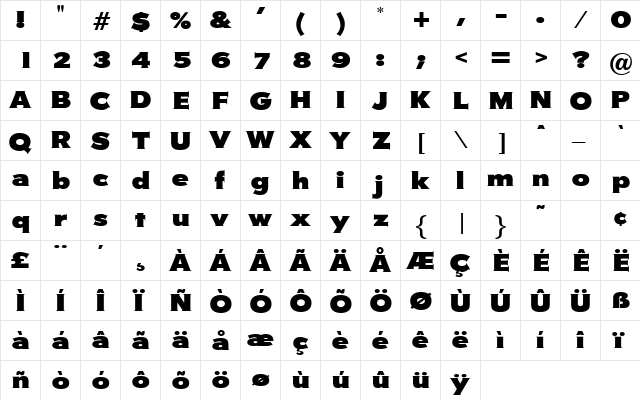
Wasserman Regular
Design Context for Wasserman Typeface
Wasserman offers clean, dependable letterforms without strong stylistic allegiance, making it a practical choice for designers who need flexibility.